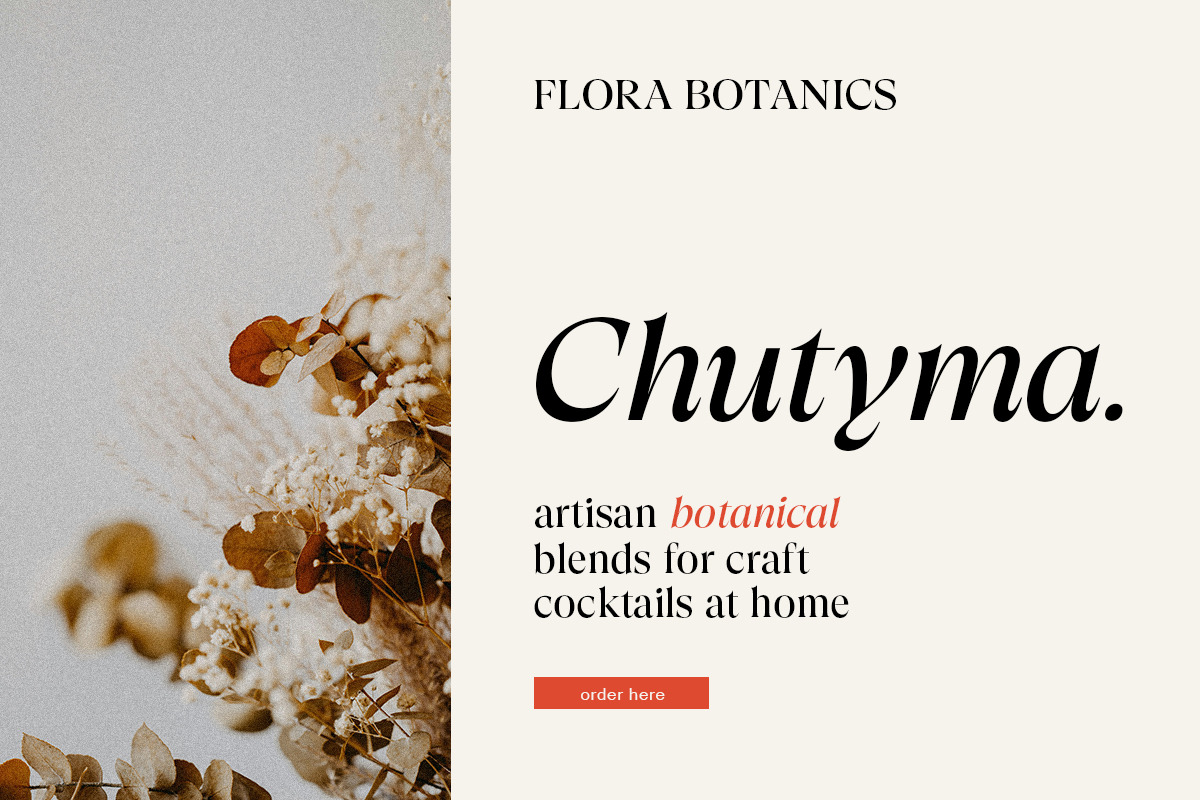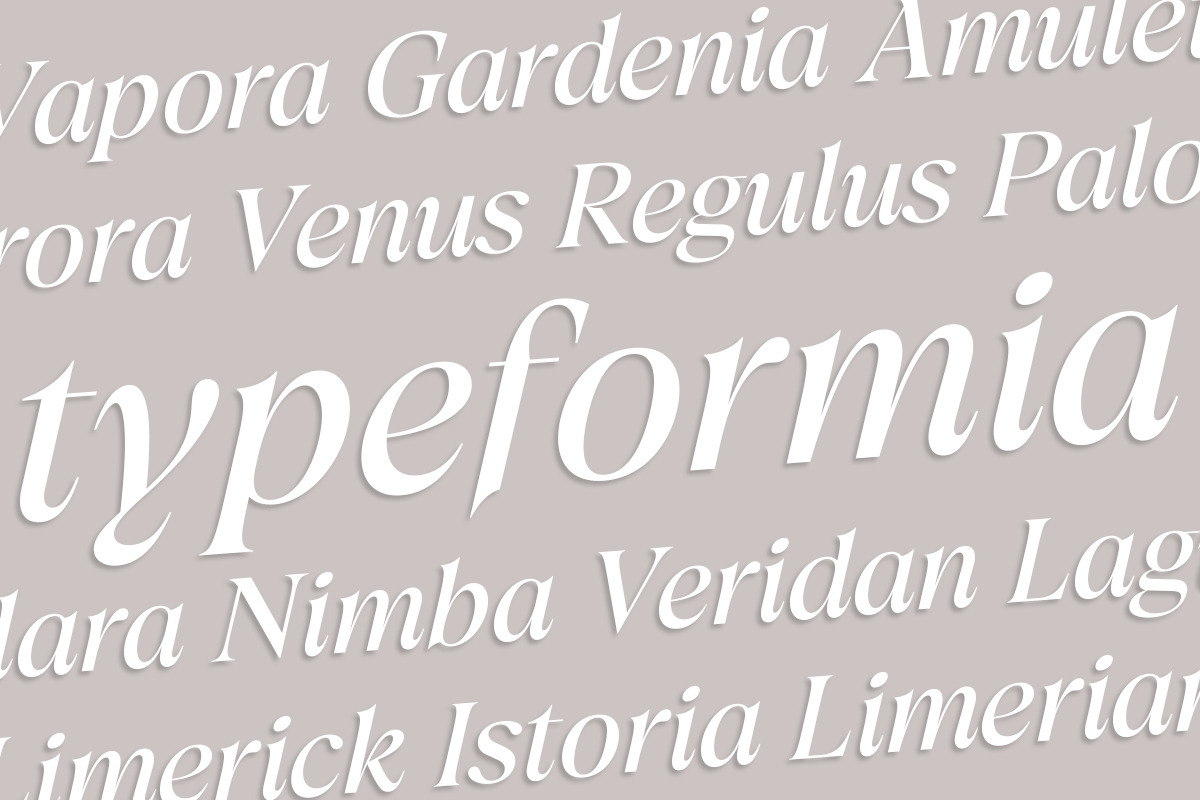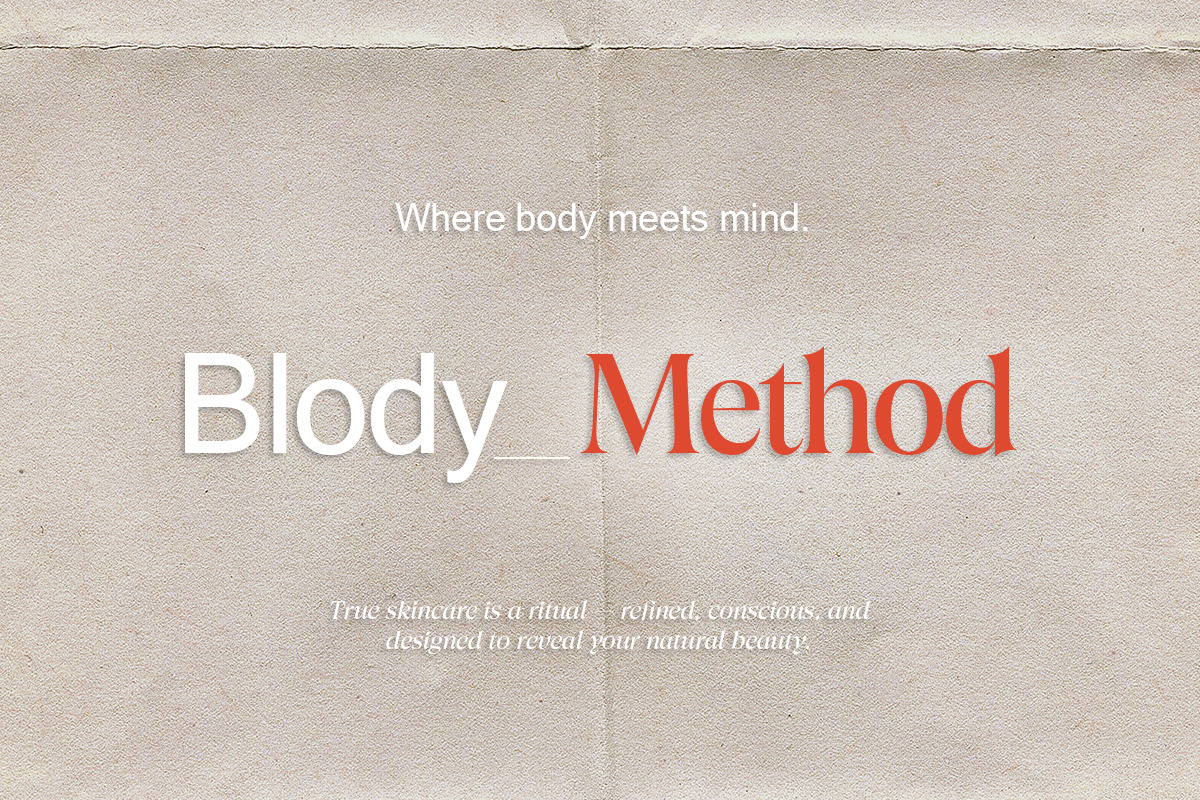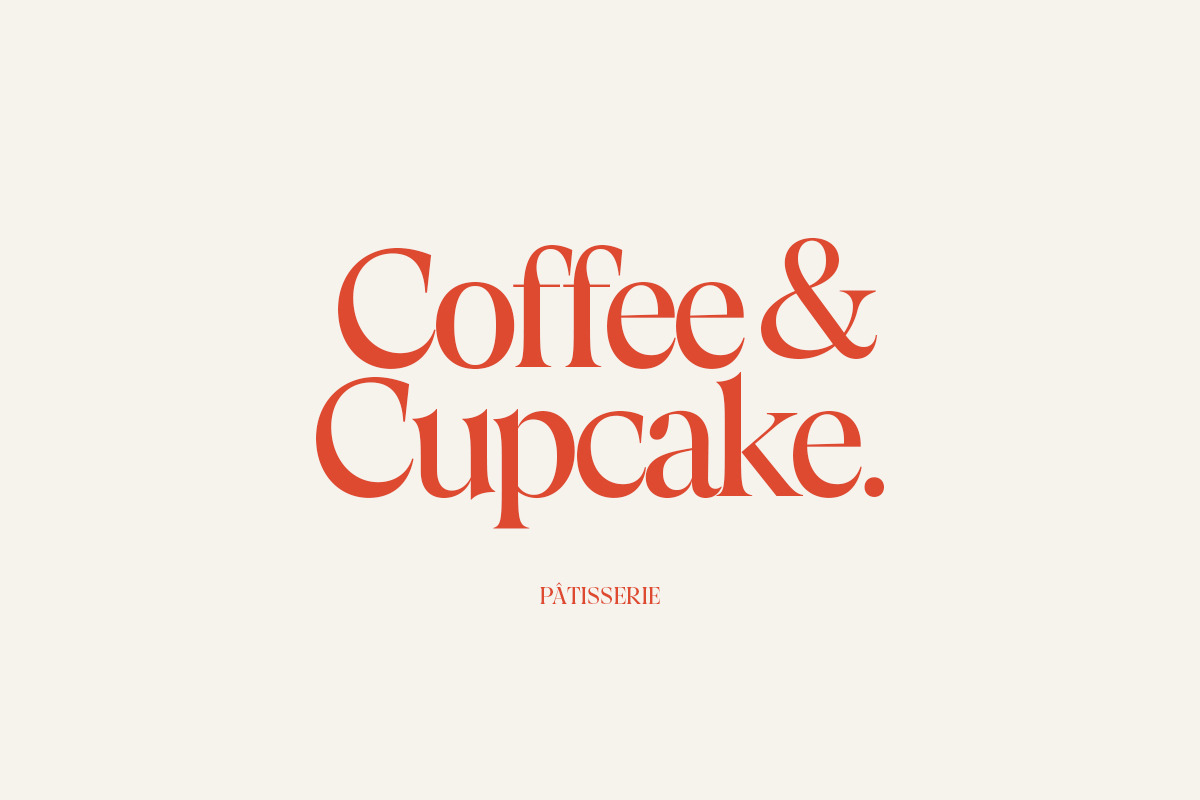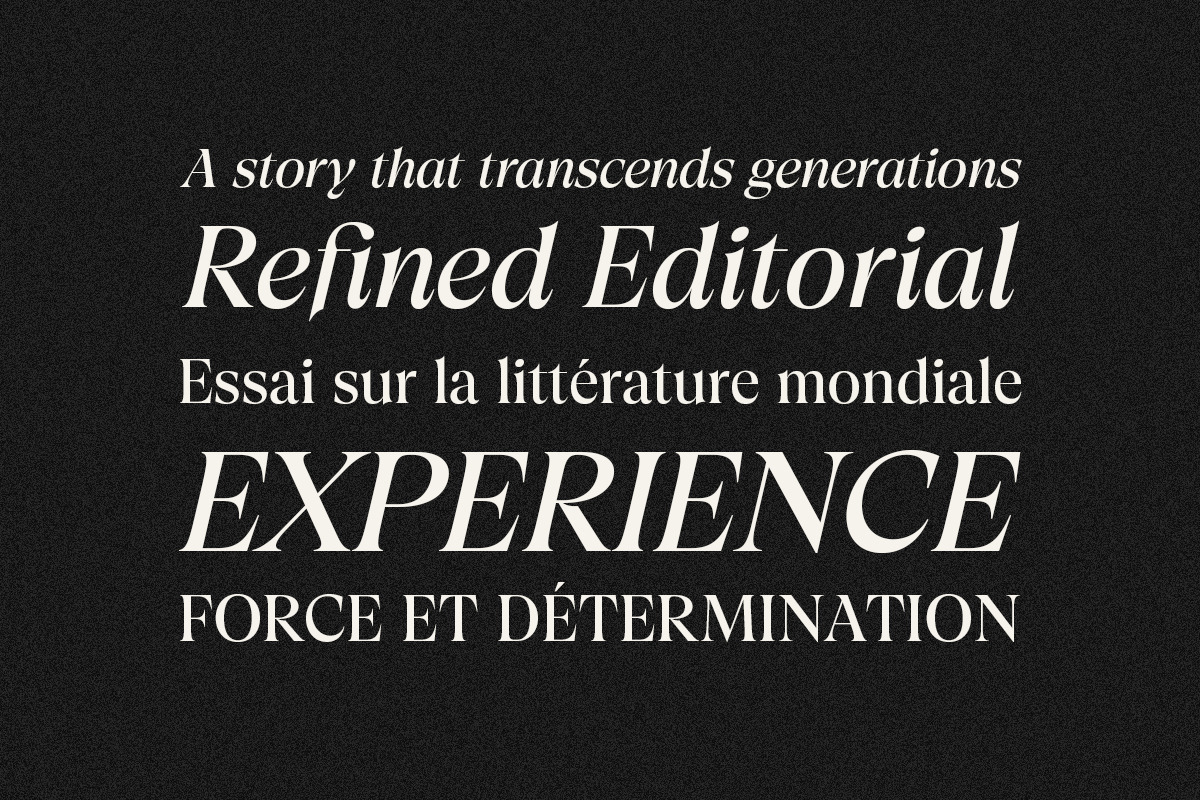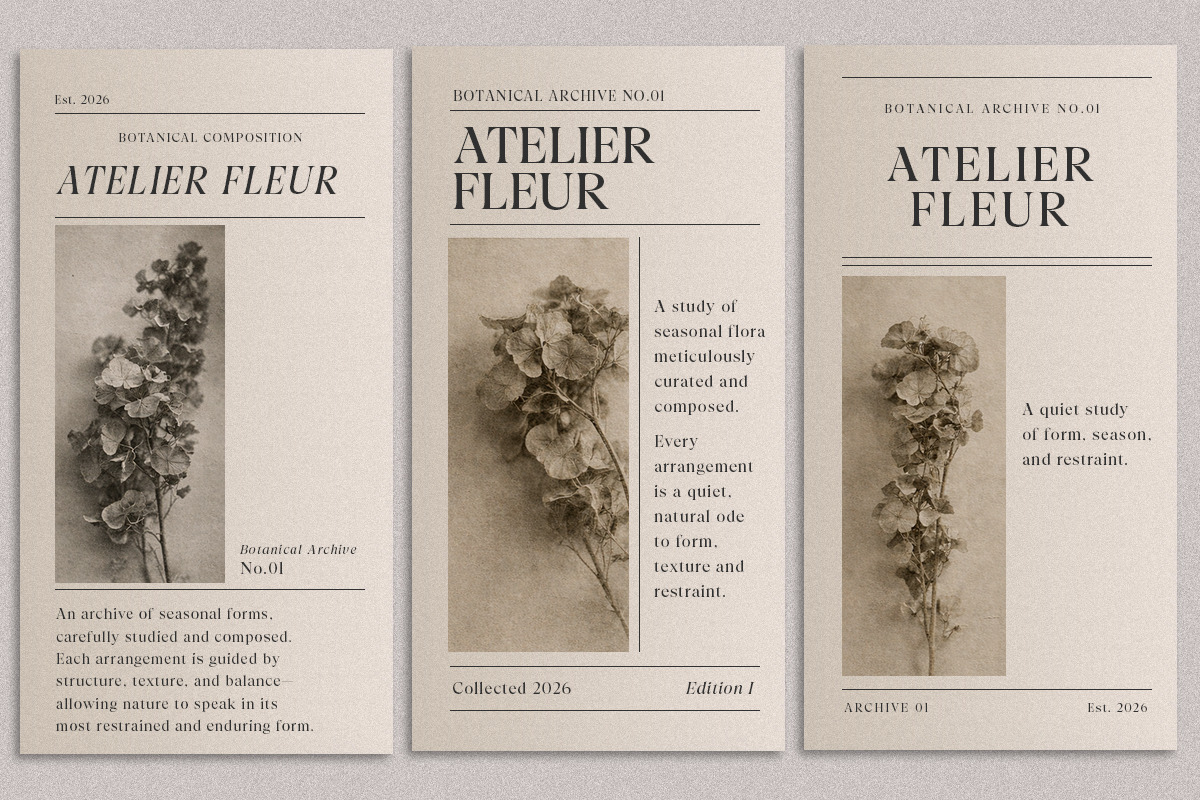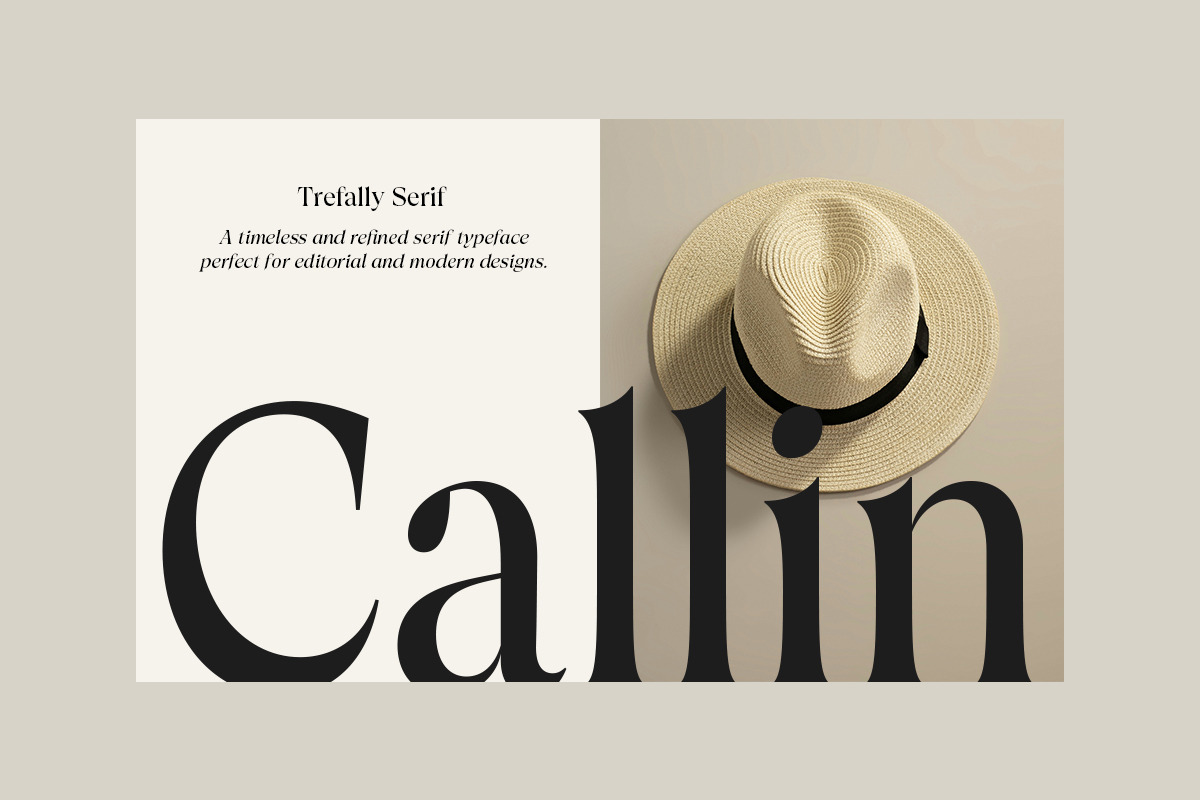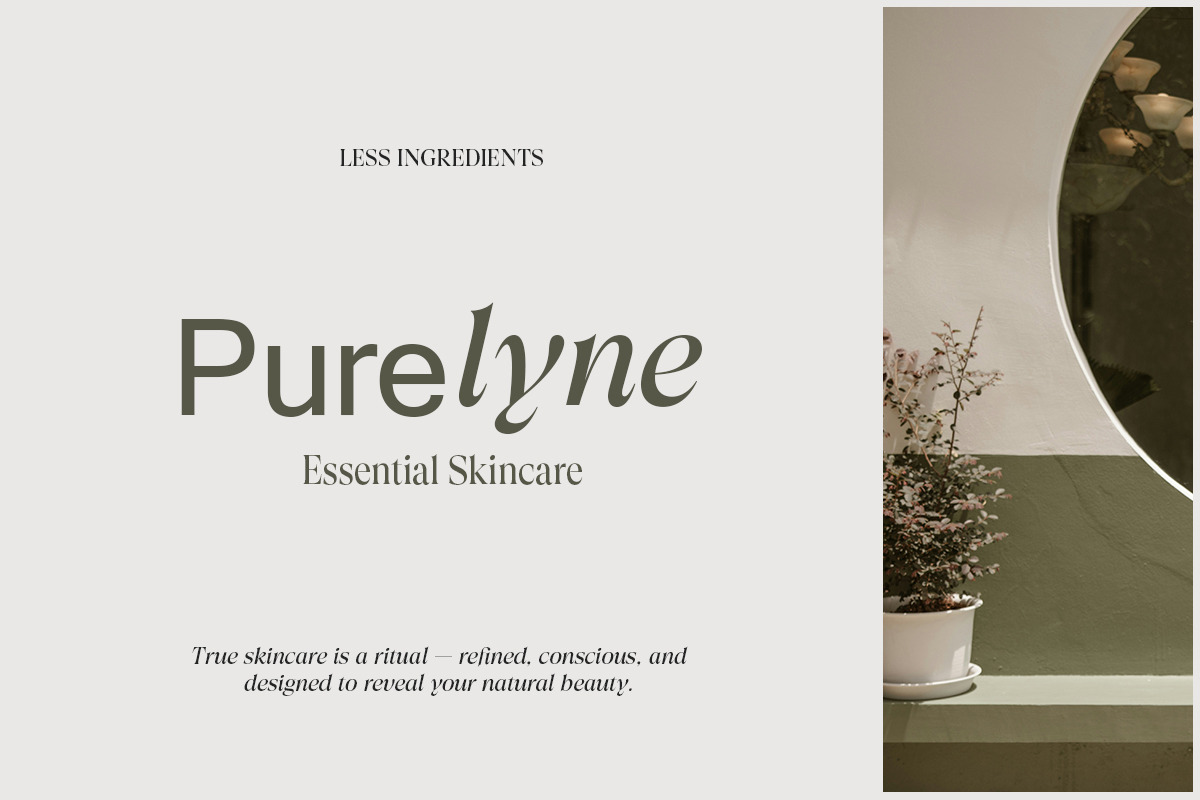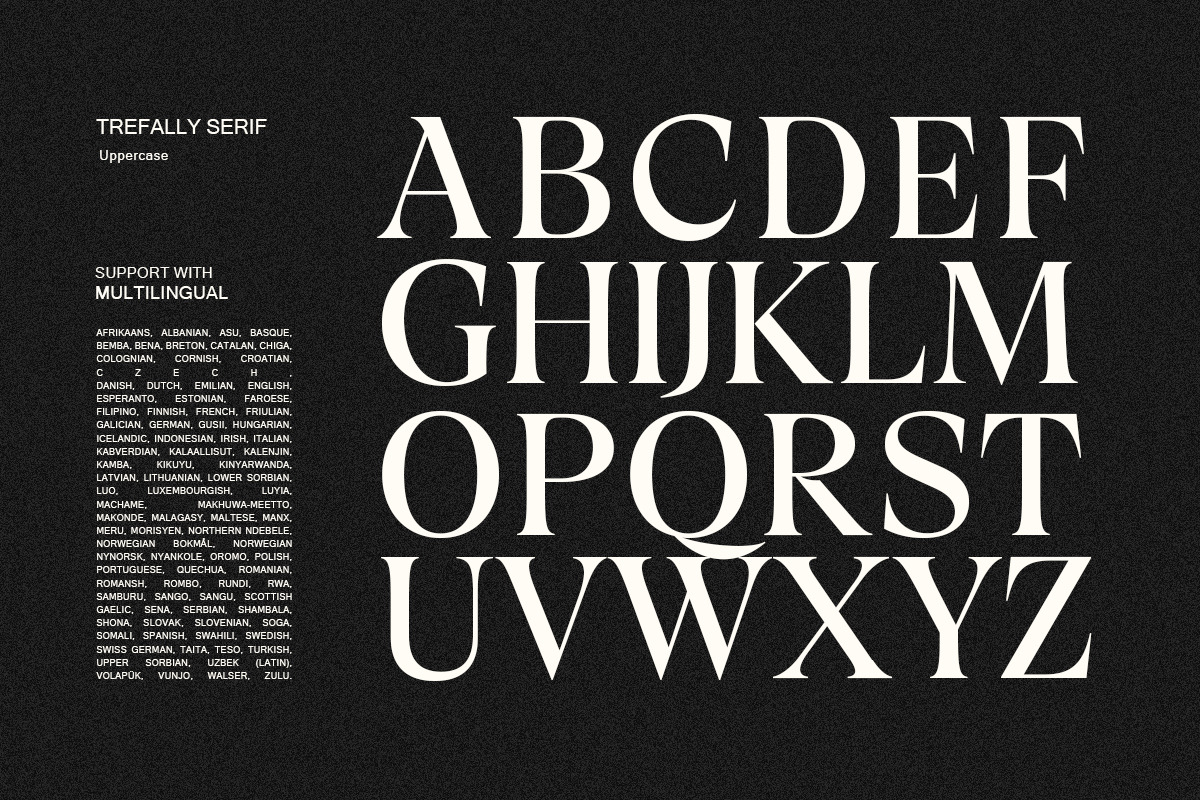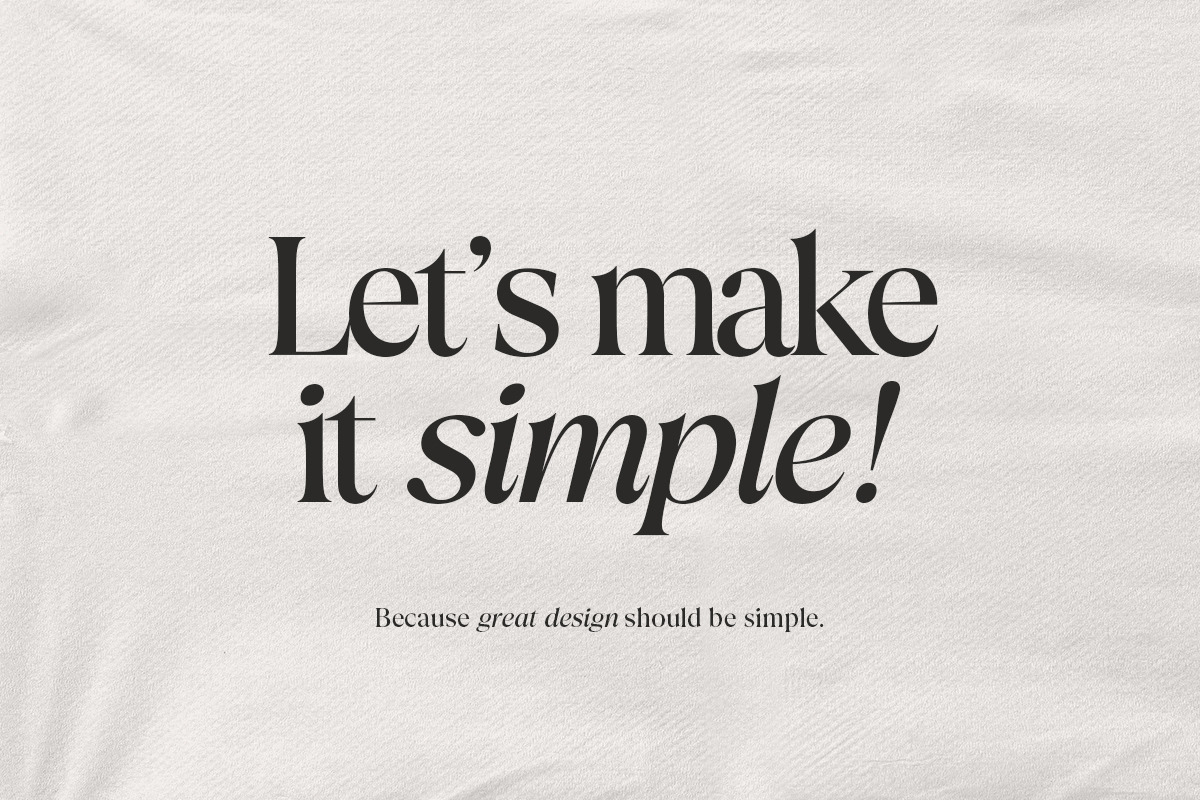
Trefally - Elegant Editorial Serif
Trefally Serif is a modern editorial serif typeface crafted for designers who love elegance, contrast, and timeless sophistication. With its refined curves and strong character, Trefally brings a premium look to any design project.
Perfect for branding, logos, fashion editorials, wedding invitations, magazines, lifestyle layouts, and social media designs, Trefally adds a luxurious and professional touch to your typography.
Features: • Regular, Italic, Condensed & Expanded styles • Uppercase & Lowercase • Numerals & Punctuation • Multilingual Support • Works on Mac & Windows